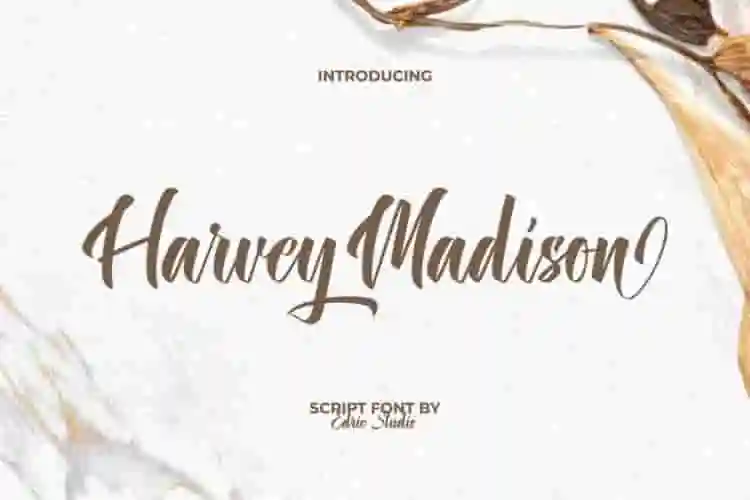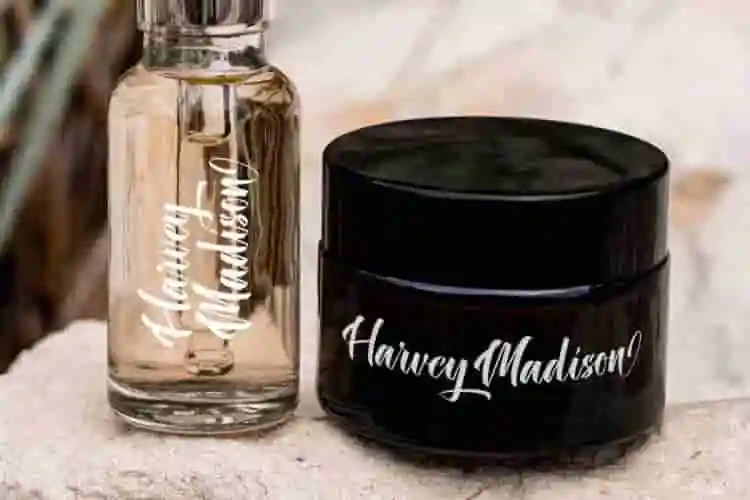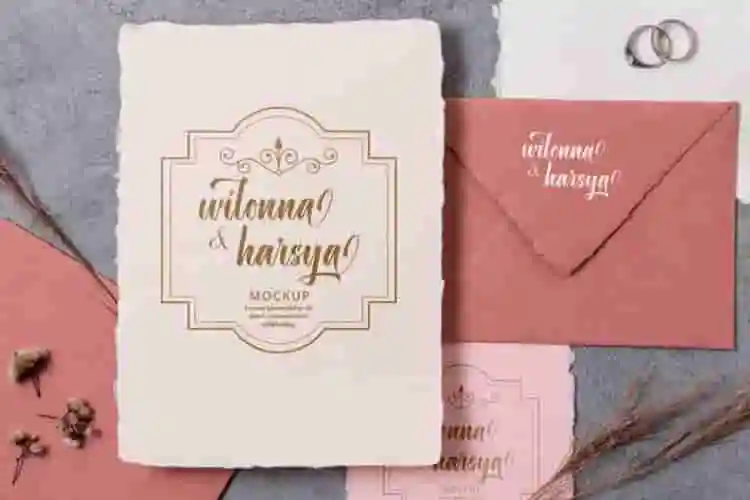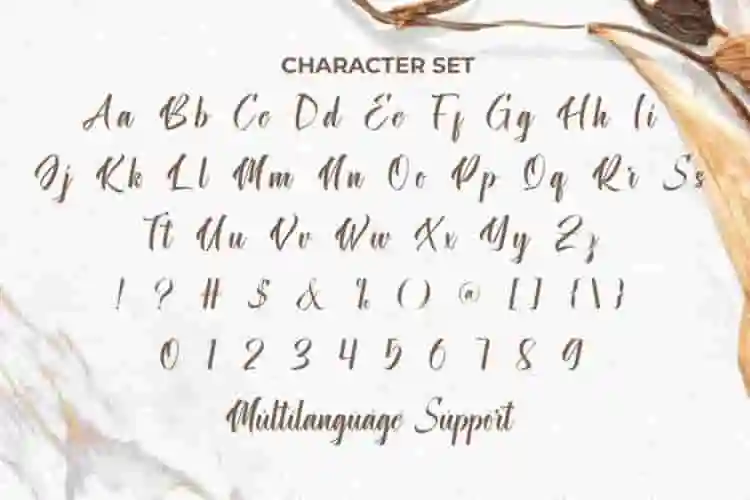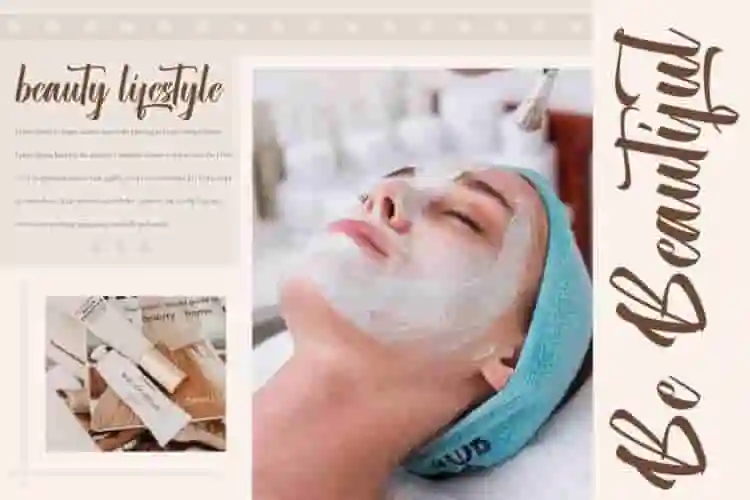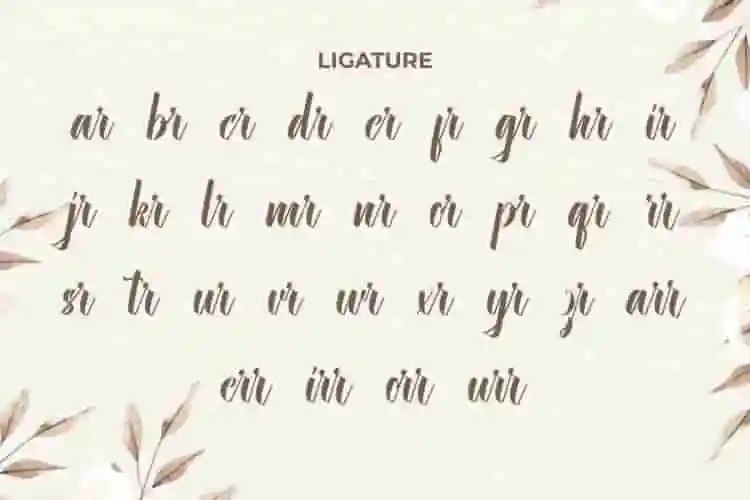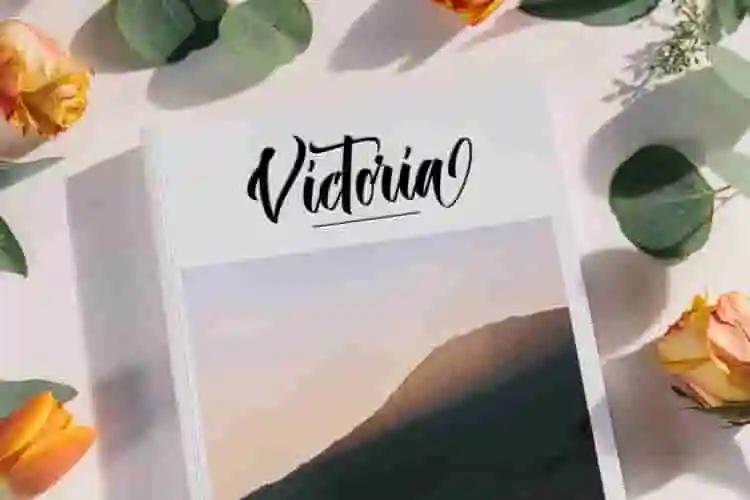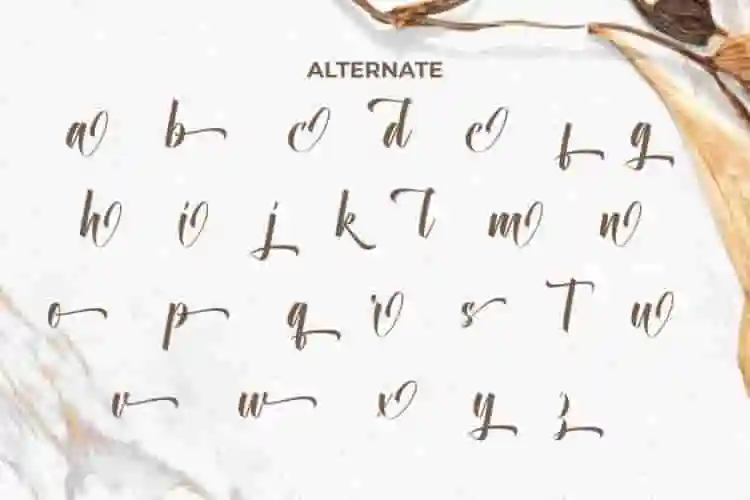
Harvey Madison Font is a beautiful bold calligraphic font that brings a casual and elegant feel. This font perfect for apps, banners, blogs, branding logos, cover, headers, headline, invitations, labels, logos, product packaging, quotes, signage, stickers, title, watermarks, websites, and more.
Harvey Madison Font comes with a full set of Uppercase and Lowercase letters, Number, Punctuation, Symbol, Ligature and Alternates. This latest script font is perfectly made for businesses such as accessories, cosmetic, fashion, handicraft, photography, skincare, spa salon, wedding organizer and anything that requires a feminine script look!
Introducing Harvey Madison Calligraphy Font – a graceful and timeless calligraphy font designed to bring luxury and sophistication to your creative projects. With its fluid strokes, romantic curves, and modern elegance, this font is the perfect choice for everything from wedding invitations to high-end branding.
Whether you’re a designer working on elegant logos, social media templates, stationery, or packaging, Harvey Madison offers a refined touch that stands out. It’s the ideal calligraphy font for projects that need to look polished, professional, and heartfelt.
Crafted with care and attention to detail, this font mimics authentic handwritten calligraphy with smooth connections and beautiful swashes. It’s perfect for wedding suites, feminine brand identities, quotes, greeting cards, and fashion lookbooks.
Harvey Madison Font also supports multilingual characters which are ready to use either on Windows or Mac machines with a simple installation. In order to use alternative characters, usually we just need to block the end letters and select alternative letters on glyphs option. Combine different characters for a bespoke, handcrafted feel. It’s tested to work well in the Adobe Apps (Illustrator, Adobe InDesign, Adobe Photoshop) even work on Microsoft Word. All of these characters are available through the glyph panel, moreover each letter has its own unicode (PUA) so you can access all the characters easily.